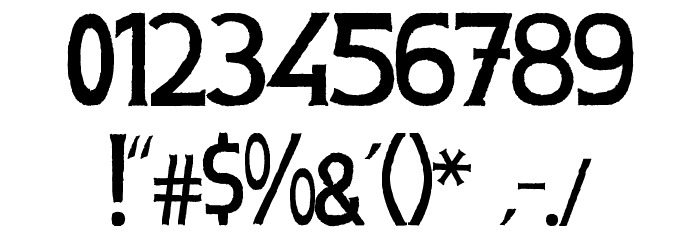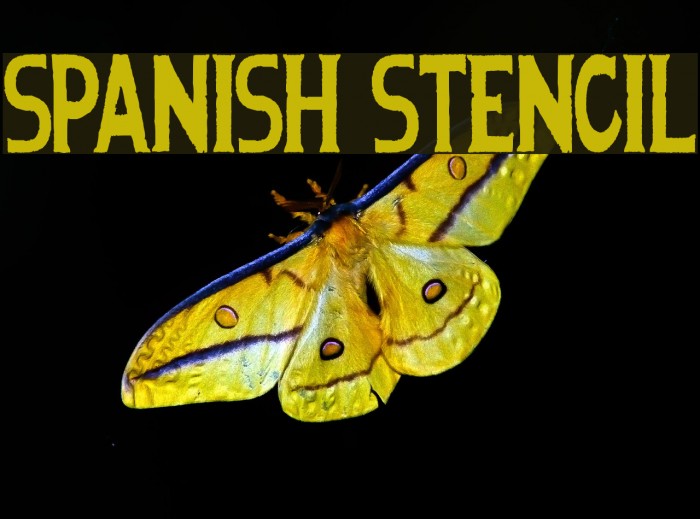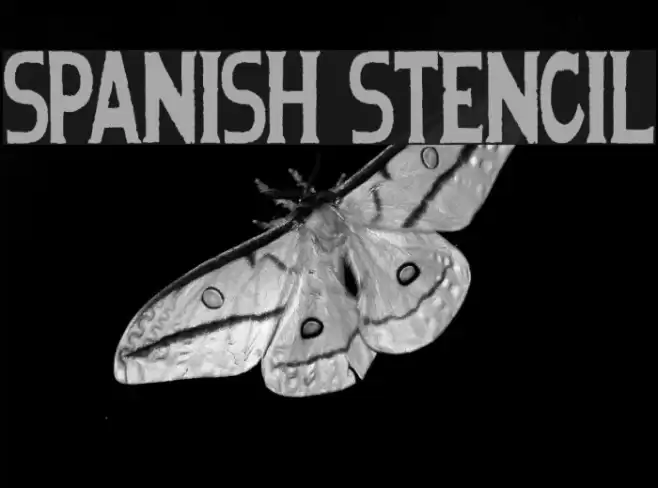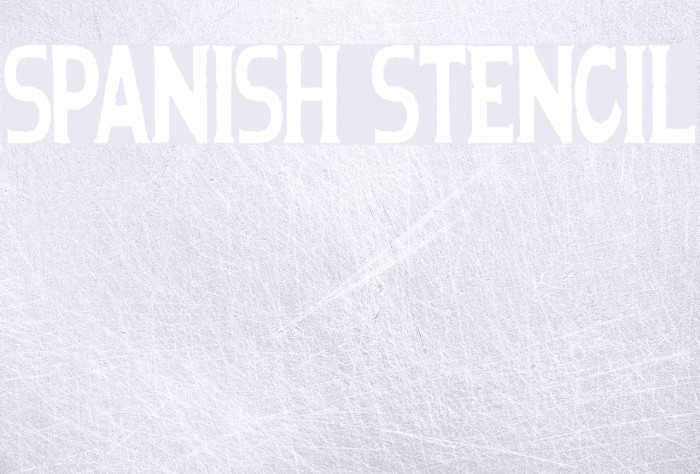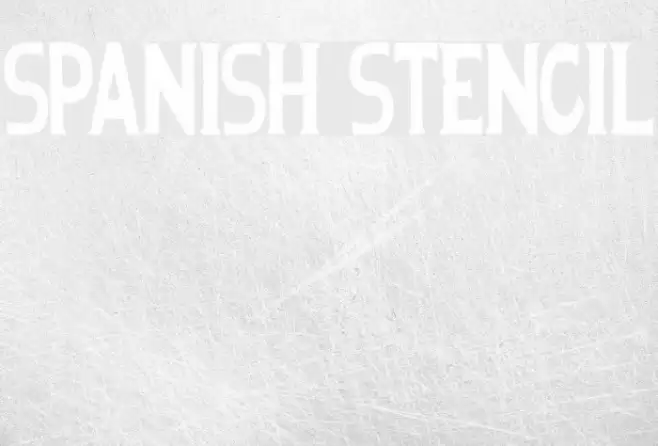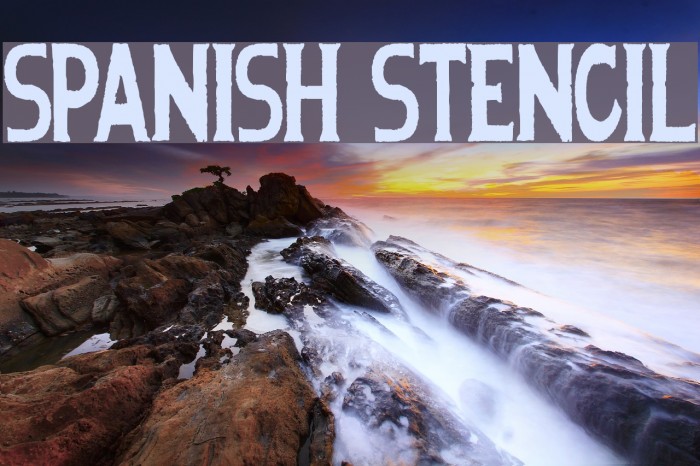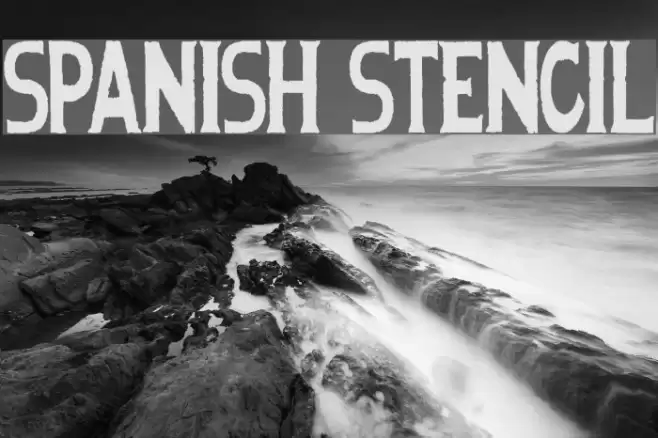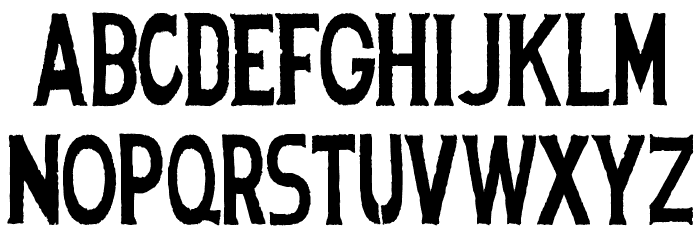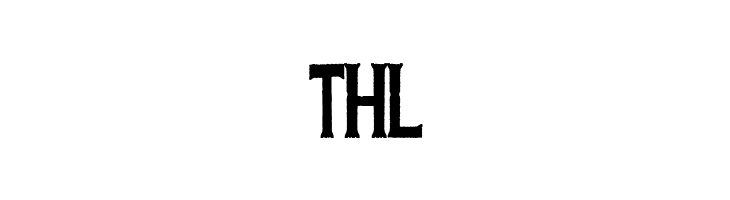
Spanish Stencil Font
This font features a bold, stencil-like design with a distinct military or industrial feel. The characters are uppercase and have a strong, commanding presence. The strokes are thick and consistent, with breaks in the lines that give it a stencil appearance. This style is reminiscent of traditional stenciling used for labeling and signage, providing a rugged and utilitarian aesthetic. The numbers and special characters follow the same design principles, ensuring uniformity across all glyphs. The font's boldness and unique style make it suitable for attention-grabbing headlines or branding that requires a strong visual impact.
A bold, stencil-style font with a rugged, industrial aesthetic.
• Proposed Projects: Ideal for military-themed designs, industrial branding, signage, and bold headlines.
• Category: Decorative/Display
• Overall Style: Industrial, Rugged
• Use Case: Headlines, Logos, Signage